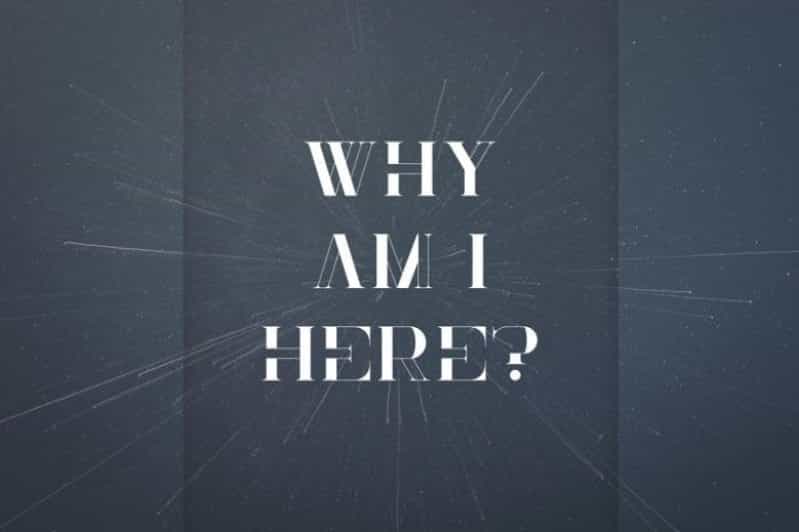
Mallie is a design of modern and fusion font with multilingual characters. It is a very useful font and suitable for both large and small sizes of text. Mallie is of great use in branding projects, home-ware designs, packaging of products, magazine headers and even as a text to place on any image.